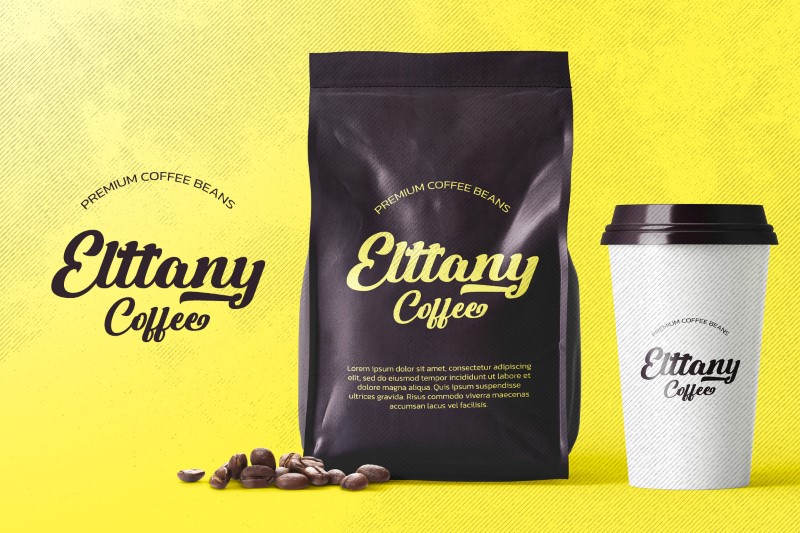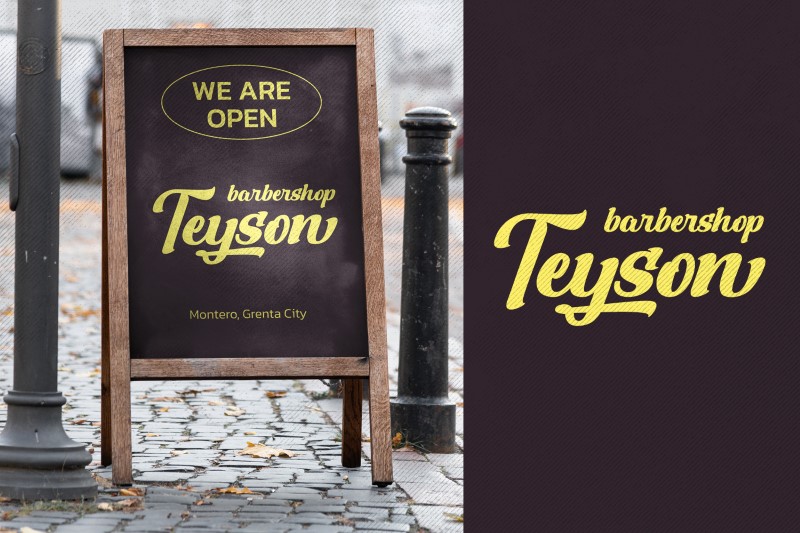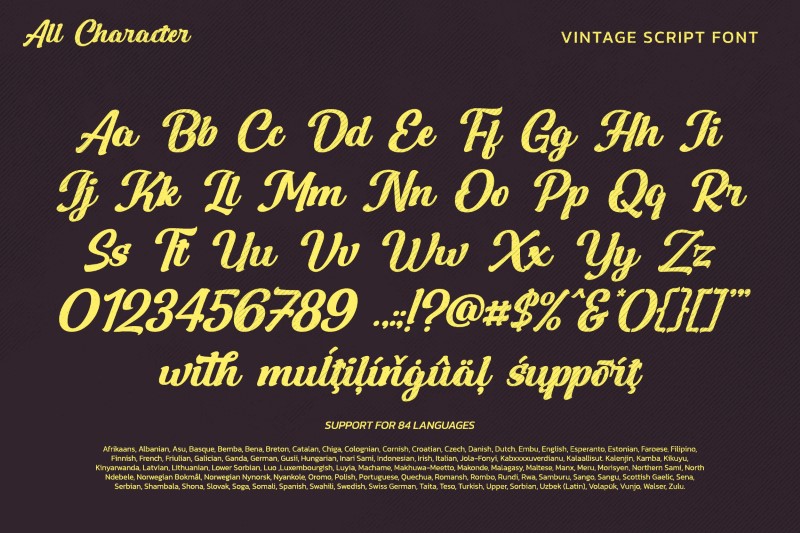
The Vintage Town
The Vintage Town is an amazing script font in elegant, vintage displays. Its thick weight and rounded shape are great to watch and easy to read in order that you can use it in various text sizes. It is even better with the extrusion version.
- Stylistic Set
- Swashes
- Multilingual Supports
The Vintage Town fits for any design projects, such as posters, banners, logos, book covers, invitations, quotes, headings, printed products, merchandise, social media, etc. Find out more ways to use this font by taking a look at the font preview.